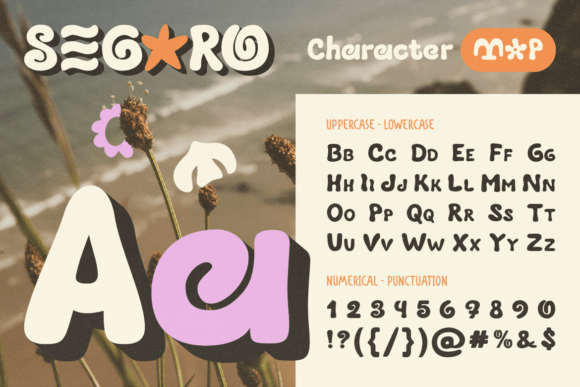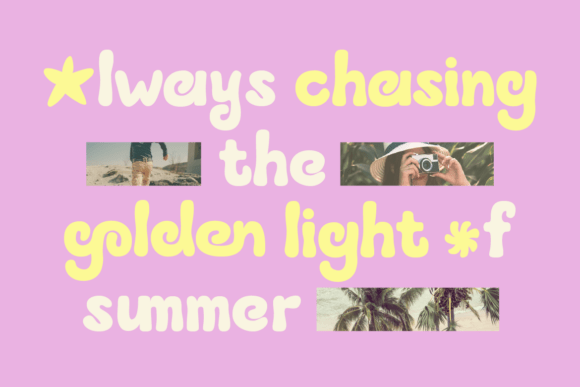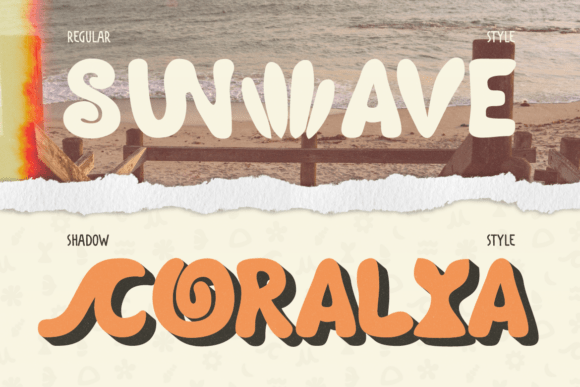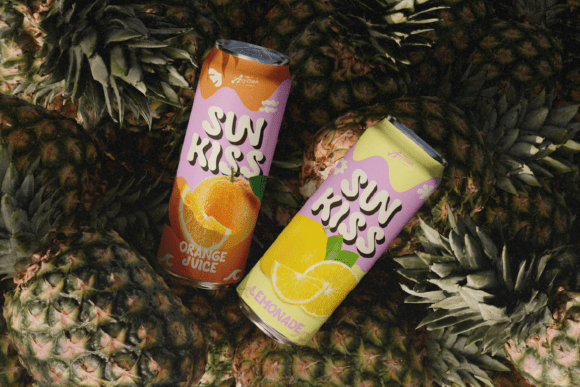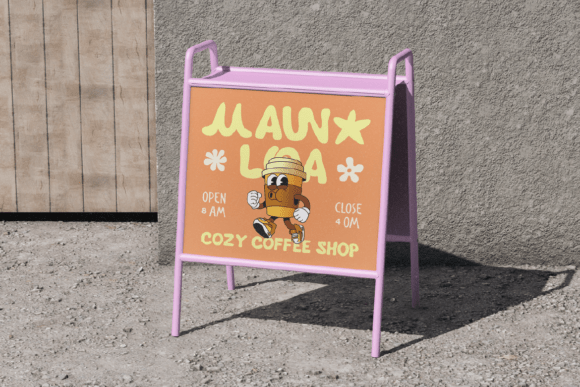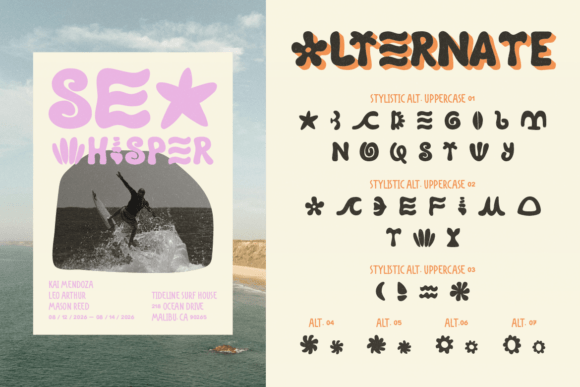
Introduction to Segaro Font
Have you ever found yourself stuck in a creative rut, desperately searching for that perfect font to bring your summer-themed project to life? You’re not alone. We’ve all been there, scrolling through design resources, hoping to stumble upon that one font that screams ‘summer vibes’ and instantly captures the essence of a carefree beach day.
That’s where the Segaro Font comes in – a high-quality, fun and playful display font that’s guaranteed to add a splash of sunshine to your designs. With its chunky, rounded shapes and groovy retro vibe, this font is perfect for creating cheerful and eye-catching visuals that are sure to grab attention. Whether you’re working on a branding project or social media graphics, the Segaro Font is a valuable addition to any designer’s toolkit.
Key Features of Segaro Font
- Features a unique, modern design suitable for a wide range of applications
- Perfect for designers looking for a stylish, professional design resource
Honest Review: Segaro Font
I recently had the chance to work with the Segaro Font in a creative project, and I must say it’s been a pleasant experience. As a designer, I’m always on the lookout for high-quality design resources that can elevate my work. The Segaro Font definitely fits the bill.
What works well: ✨ The Segaro Font has a beautiful, elegant design that’s perfect for a wide range of creative projects. It’s highly versatile and can be used for both print and digital designs. The font also comes in a variety of weights and styles, making it easy to find the perfect fit for your project.
Here are some of the features I love about the Segaro Font:
- Transparent background, making it easy to use on any design
- Wide range of weights and styles to choose from
What doesn’t work so well: ⚠️ The Segaro Font doesn’t have a lot of character variants, which might limit its use in certain creative projects. Additionally, the font can be a bit heavy-handed in some situations, so be sure to use it sparingly.
Overall, I’m really impressed with the Segaro Font. It’s a high-quality design resource that’s perfect for designers looking to add a touch of elegance to their work. I’d definitely recommend it for any creative project.
Common Use Cases for the Segaro Font
The Segaro Font is versatile and can be used in a variety of creative projects, including logos, branding materials, and marketing materials. Its unique design and high-quality make it perfect for professional and personal projects.
Getting the Most Out of the Segaro Font
To get the most out of the Segaro Font, experiment with different font sizes, colors, and combinations to create unique and eye-catching designs. The transparent background of the font also makes it perfect for layering and combining with other design elements.
Does the Segaro Font include a transparent background, making it suitable for overlaying on images?
Yes, the Segaro Font includes a transparent background, allowing designers to easily overlay it on images or other design elements. This feature is particularly useful for creating visually appealing and engaging designs for various creative projects.